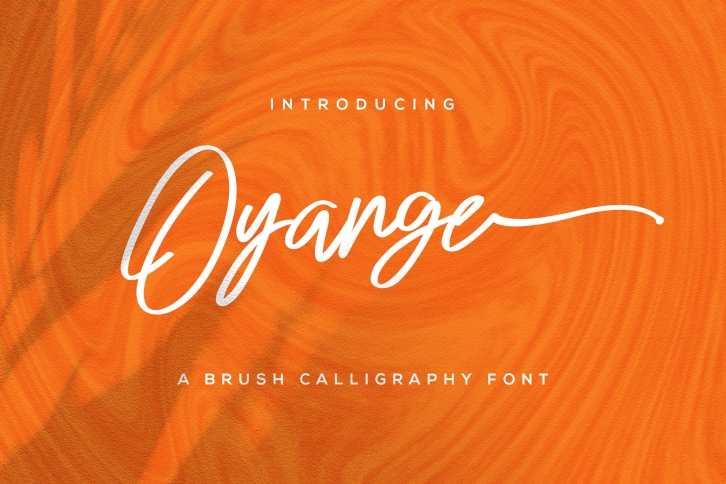
Oyange - Brush Calligraphy Font Download
Introducing Oyange - Brush Calligraphy Font
Oyange results out of a stunning pairing of a brush pen that makes it look incredibly endearing and authentic. Use this gorgeous and unique script font to bring any DIY project to life!
- Alternates
- Swash